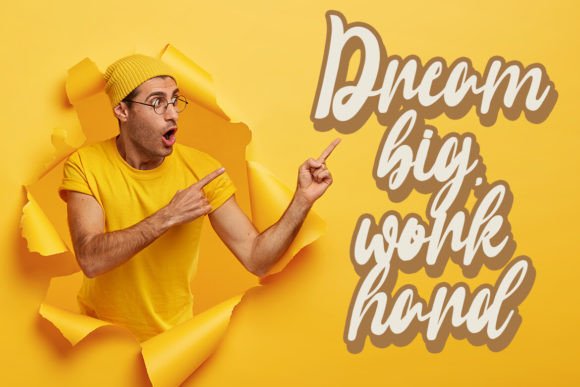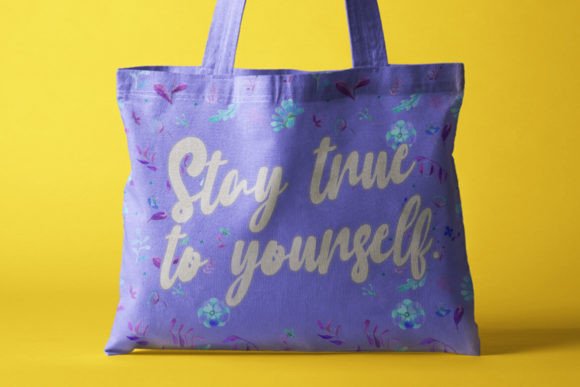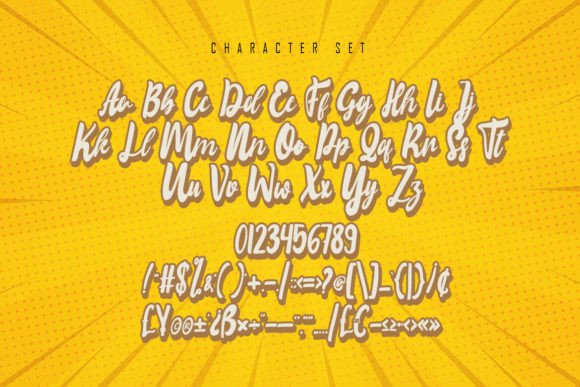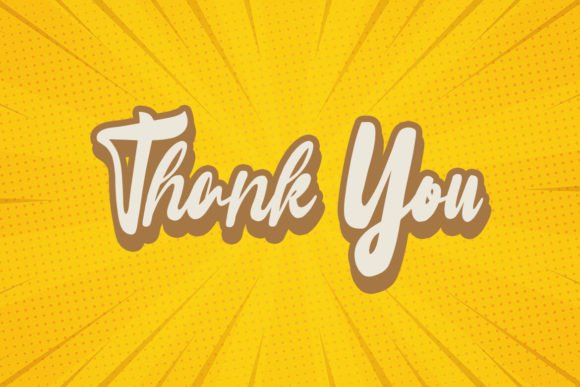
Freaks Font: Elevate Your Designs with a Handwritten Script
In the world of design, typography plays a crucial role in conveying the tone and personality of a brand or project. For those seeking a unique and personal touch, the Freaks Font is an excellent choice. This handwritten script font boasts a natural flow and beautiful style, making it perfect for a wide range of design applications.
What is Freaks Font?
Freaks Font is a carefully crafted handwritten script font that exudes a sense of elegance and sophistication. Its natural flow and fluid strokes give it a personal and approachable feel, making it ideal for designs that require a human touch. The font’s beautiful style is characterized by its smooth curves, subtle variations in line width, and charming imperfections that add to its handmade charm.
Freaks Font is a versatile font that can be used in a variety of creative projects, including:
- Invitation Design Projects: Whether it’s a wedding invitation, birthday party invite, or baby shower announcement, Freaks Font adds a touch of warmth and personality to your designs.
- Prewedding and Wedding Designs: Make your prewedding and wedding designs stand out with Freaks Font’s elegant and romantic style.
- Branding and Logos: Use Freaks Font to create a unique and memorable brand identity that sets you apart from the competition.
- Social Media Posts: Add a personal touch to your social media posts and make them more engaging with Freaks Font.
- Advertisements: Use Freaks Font to create eye-catching advertisements that grab attention and leave a lasting impression.
- Product Packaging and Design: Elevate your product packaging and design with Freaks Font’s beautiful and distinctive style.
- Labels and Photography: Add a touch of elegance to your labels and photography with Freaks Font’s smooth and flowing curves.
- Watermarks and Stationery: Use Freaks Font to create beautiful watermarks and stationery that reflect your personal style.
Why Choose Freaks Font?
So, why choose Freaks Font for your design projects? Here are just a few reasons:
- Unique and Personal: Freaks Font’s handwritten style gives your designs a unique and personal touch that sets them apart from the rest.
- Versatile: Freaks Font can be used in a wide range of design applications, from invitations and branding to social media posts and product packaging.
- Elegant and Sophisticated: Freaks Font’s beautiful style and natural flow make it perfect for designs that require an elegant and sophisticated touch.
- Easy to Read: Despite its elegant style, Freaks Font is easy to read and understand, making it perfect for designs that require clear communication.
Tips for Using Freaks Font
To get the most out of Freaks Font, here are a few tips to keep in mind:
- Use it sparingly: Freaks Font’s elegant style can be overwhelming if used excessively. Use it sparingly to add a touch of personality to your designs.
- Pair it with other fonts: Experiment with pairing Freaks Font with other fonts to create a unique and visually appealing combination.
- Adjust the size and color: Adjust the size and color of Freaks Font to suit your design needs and create visual hierarchy.
In conclusion, Freaks Font is a beautiful and versatile handwritten script font that can elevate your designs to the next level. Its natural flow, elegant style, and charming imperfections make it perfect for a wide range of creative projects. Whether you’re a designer, crafter, or DIY enthusiast, Freaks Font is an excellent choice for adding a personal touch to your designs. So, why not give it a try and see the difference it can make?